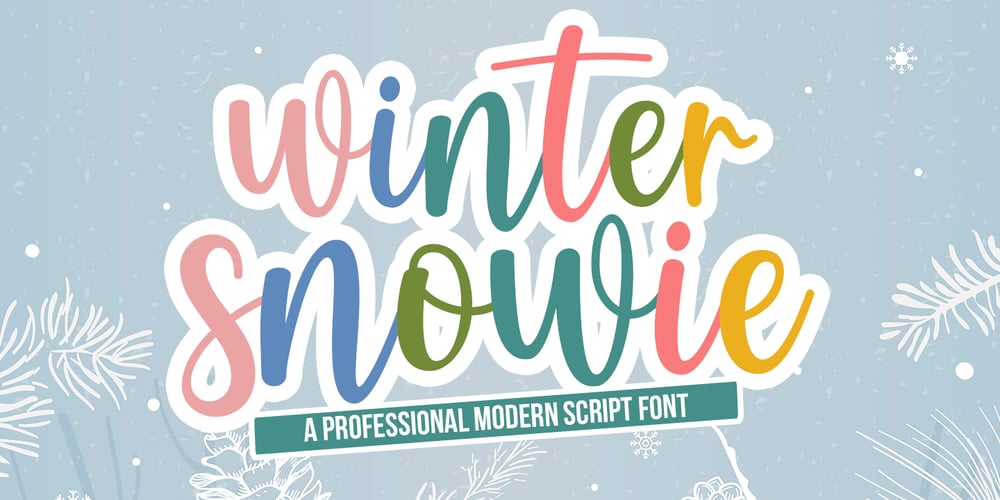
Winter Snowie Font Family was designed by Arif Gunawan and published by Natural Ink. Winter Snowie contains 1 styles and family package options. Immerse yourself in the captivating charm of the Winter Snowie Script font, an embodiment of modern calligraphy blended with casual elegance. The eye-catching swashes imbue a unique visual appeal that effortlessly brings your design to life. With its multifaceted potential, it shines across a variety of applications – whether it’s logo creation, product packaging, wedding cards, branding initiatives, striking headlines, sleek signage, sophisticated labels, artful signatures, book jackets, poster designs, insightful quotes and beyond. Its beauty lies in its versatility, adding a touch of creative magic to each use. Experience the compelling impact of the Winter Snowie Script, where design meets imagination.